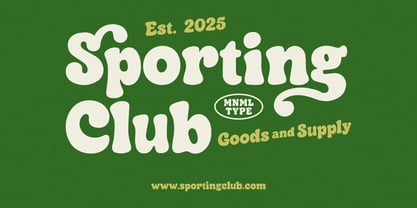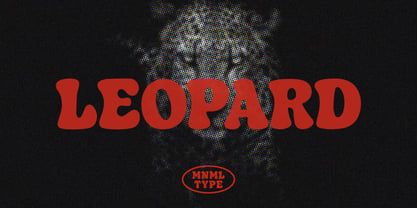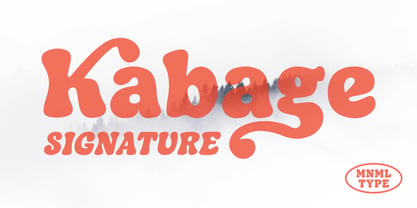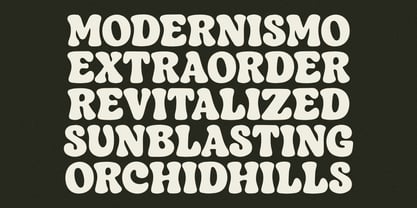
Cosmic Curl
por Modikstype
La familia tipográfica Cosmic Curl fue diseñada por Angga Monad y publicada por Modikstype. Cosmic Curl contiene 1 estilos. Más información sobre esta familia
Cosmic Curl is a bold retro typeface inspired by 60s–70s psychedelic lettering, organic curves, and playful visual rhythm. Its chunky silhouettes and whimsical swashes make every word feel lively and expressive. Designed for creators who want to bring personality and nostalgic charm into their work, Cosmic Curl is perfect for branding, posters, packaging, editorial titles, logos, magazines, and standout social media graphics. Each letterform is crafted with smooth, soft edges and subtle irregularities that mimic hand-drawn aesthetics while remaining highly readable. The optional curls and swoopy terminals add a distinctive character that feels warm, friendly, and delightfully vintage. Whether you're building a retro-inspired brand, designing merch, or crafting eye-catching typographic compositions, Cosmic Curl delivers a bold, joyful visual identity that stands out effortlessly.
Diseñadores: Angga Monad
Fundición: Modikstype